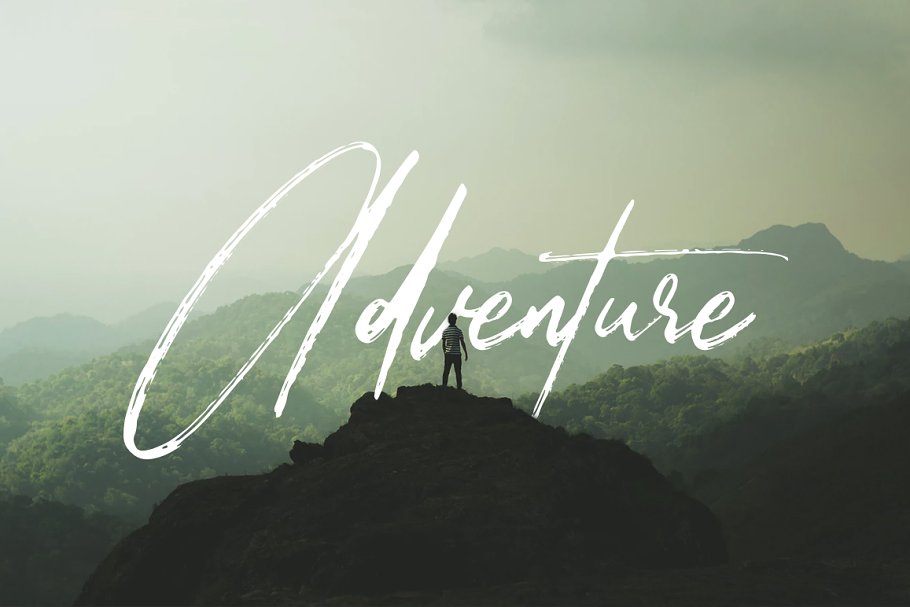
About the Boathouse A Signature Brush Font
Boathouse*A Brush Signature Script TypefaceBoathouse is a brush signature script typeface with a natural and stylish calligraphy style, It’s a great typeface for Photographer Signatures or Logos that want to emulate a Signature, It also works great for titles, postcards, packaging, labels, apparel, prints, quotes etc, Boathouse includes an , OTF &